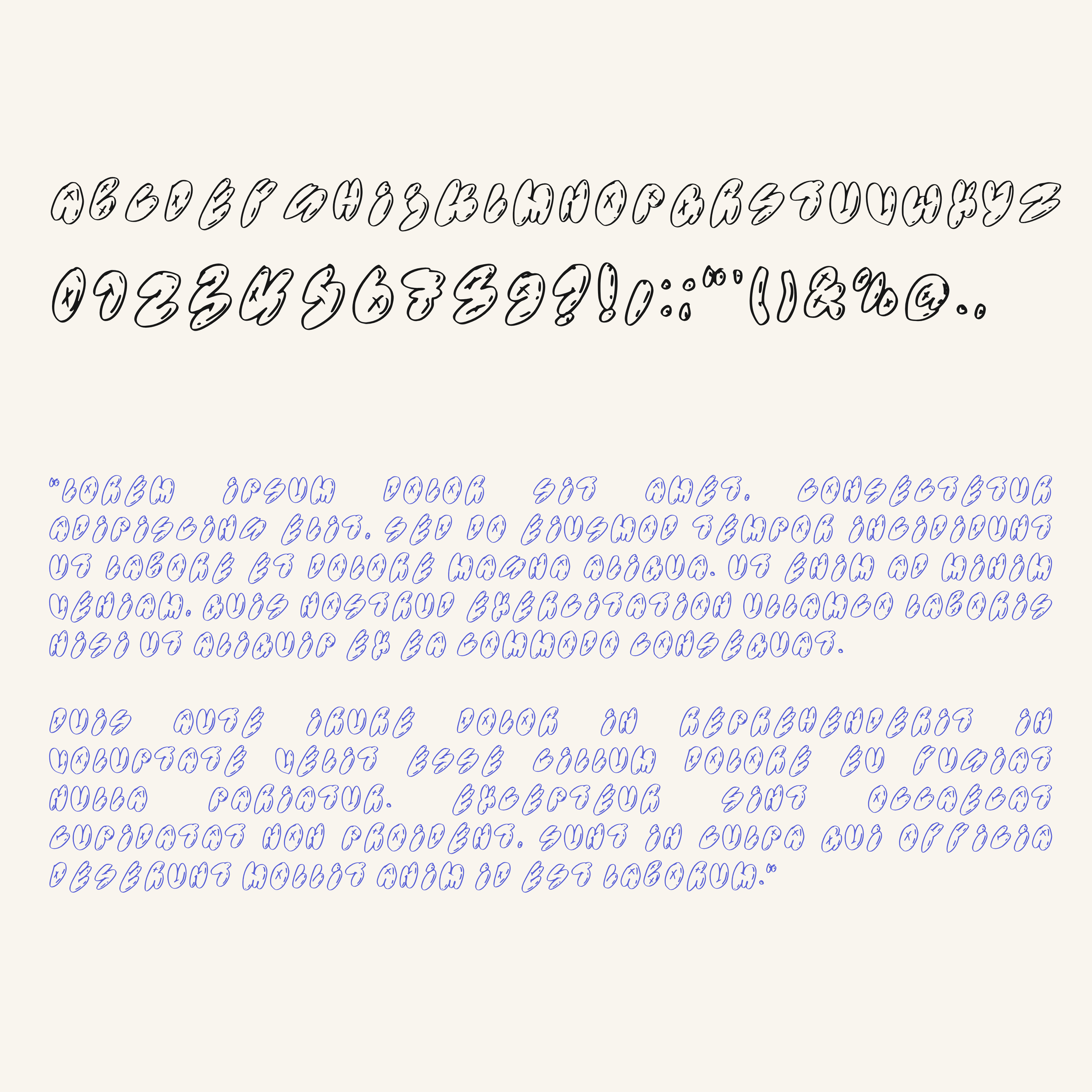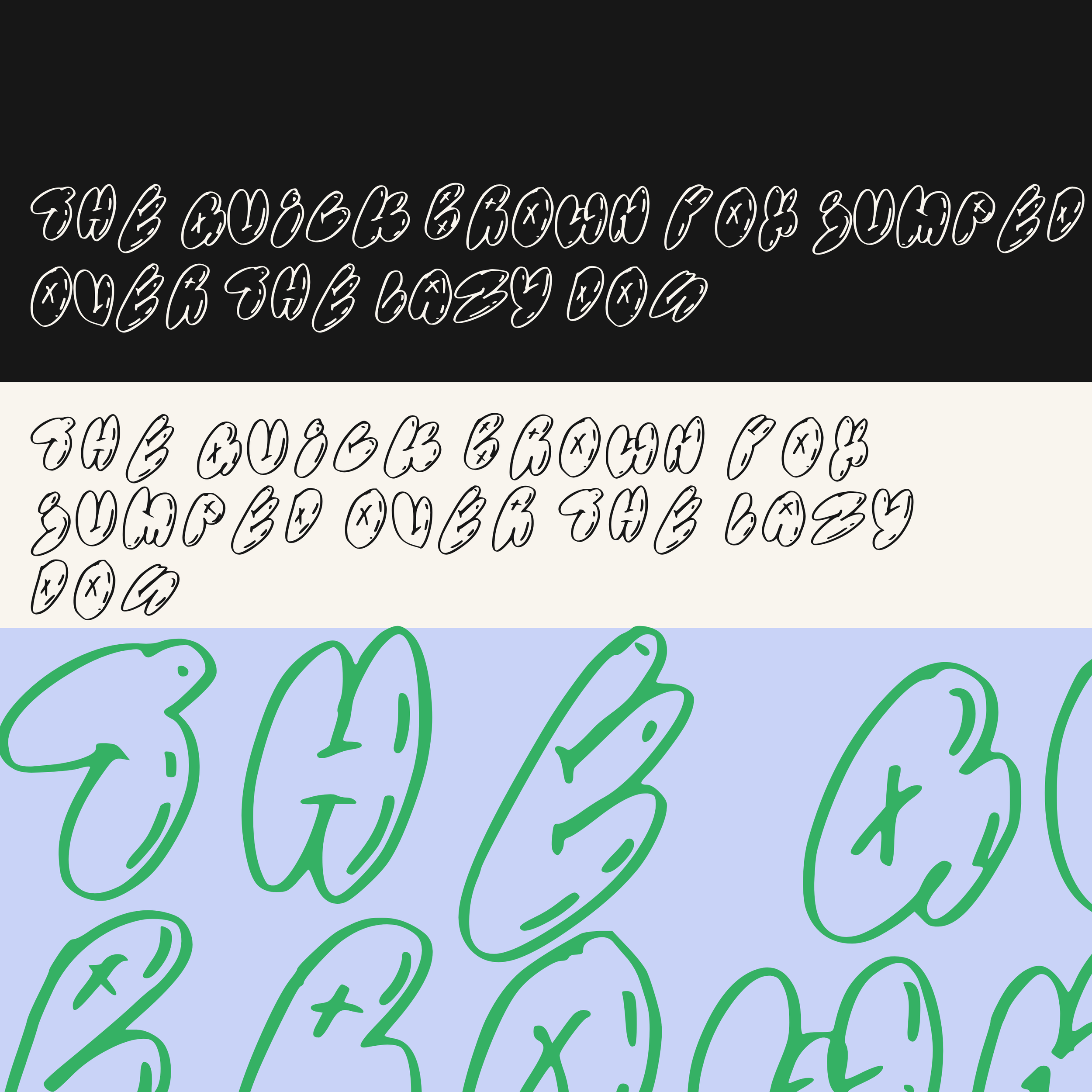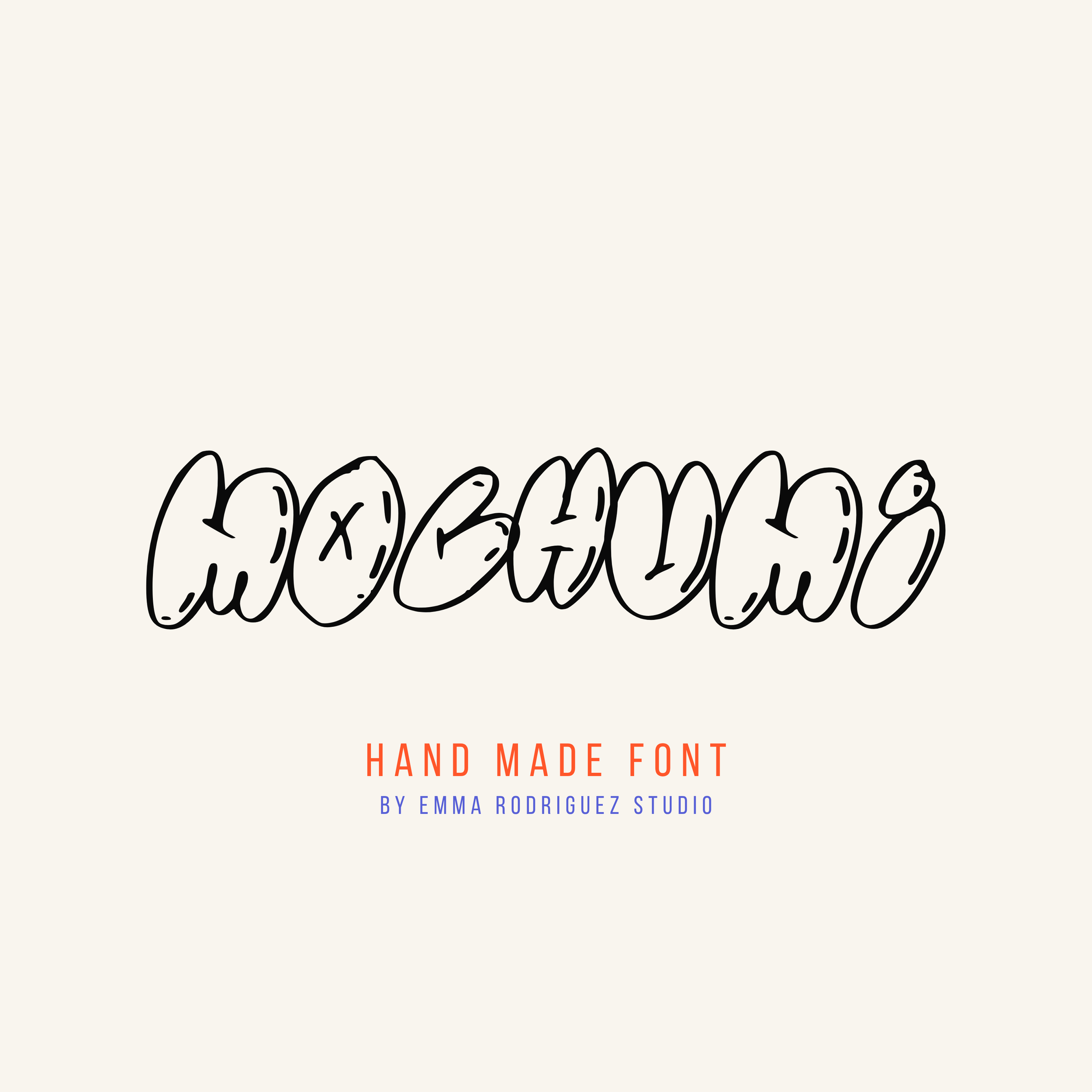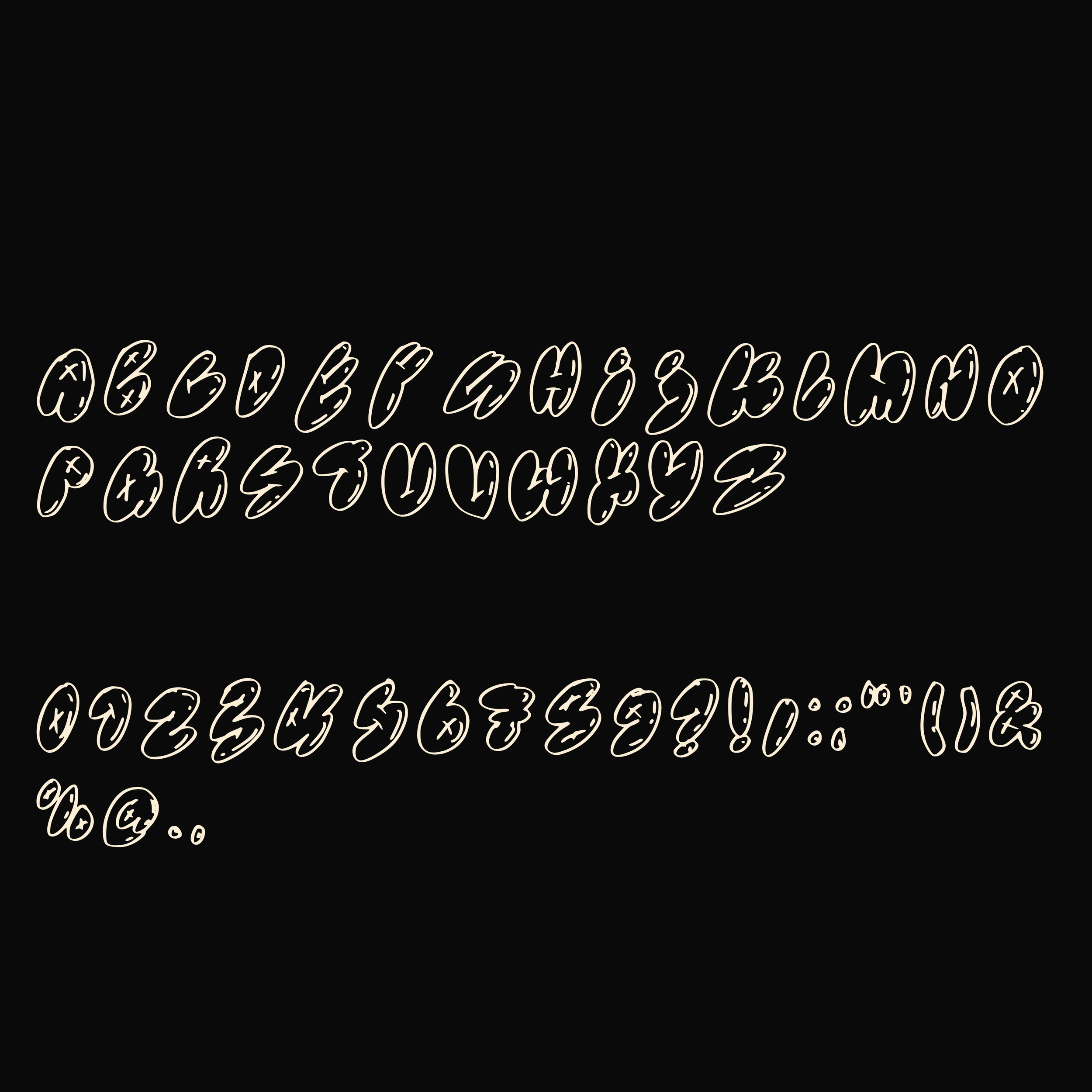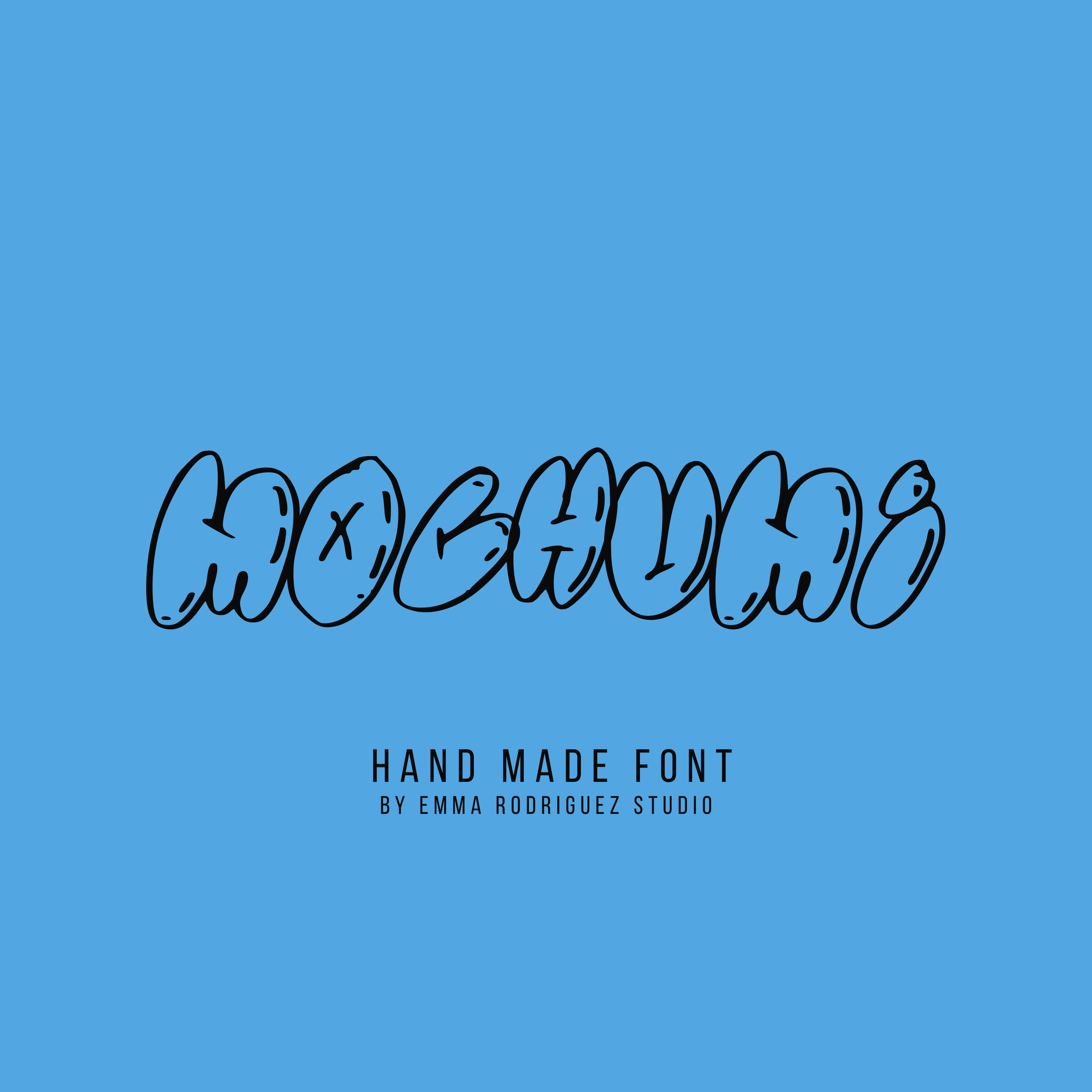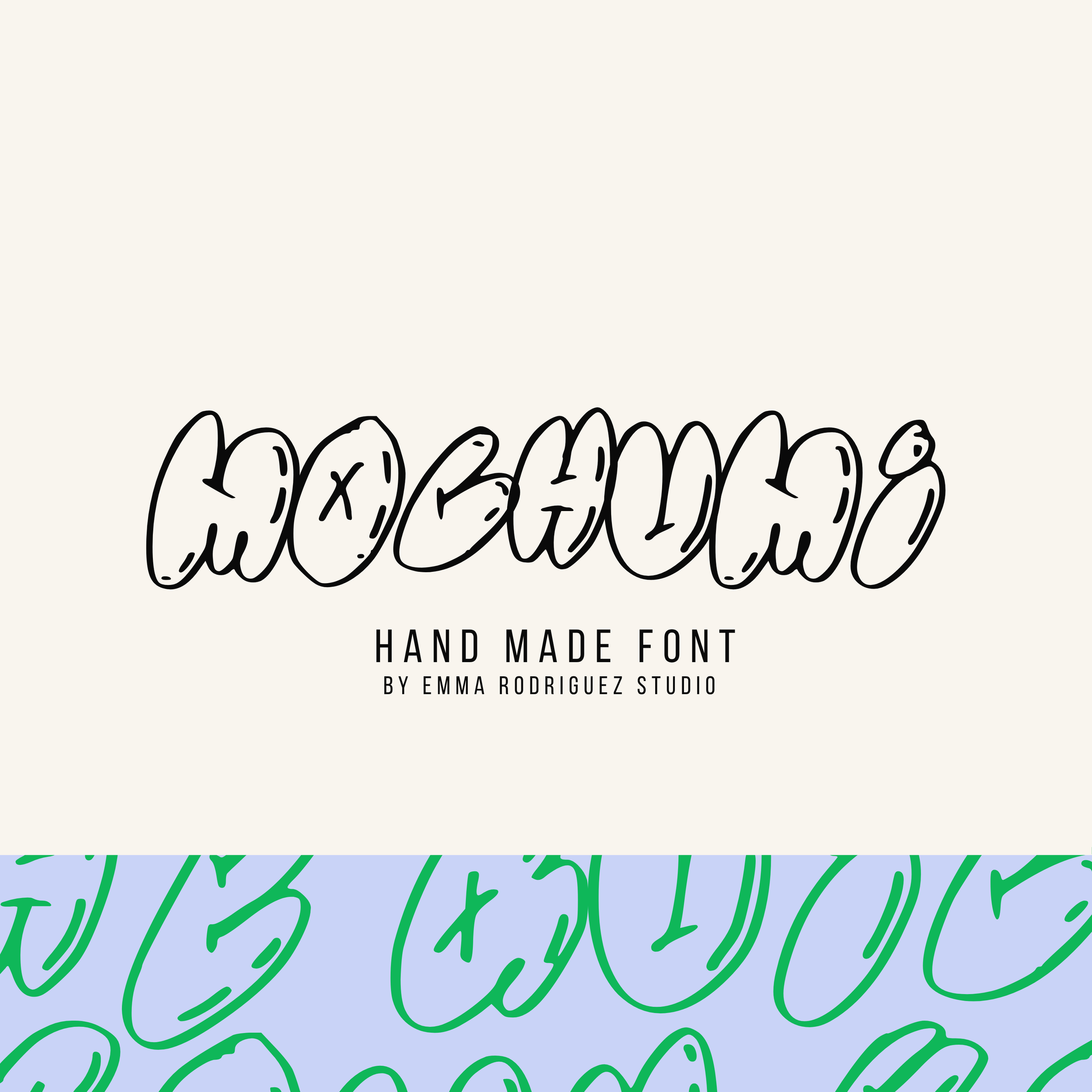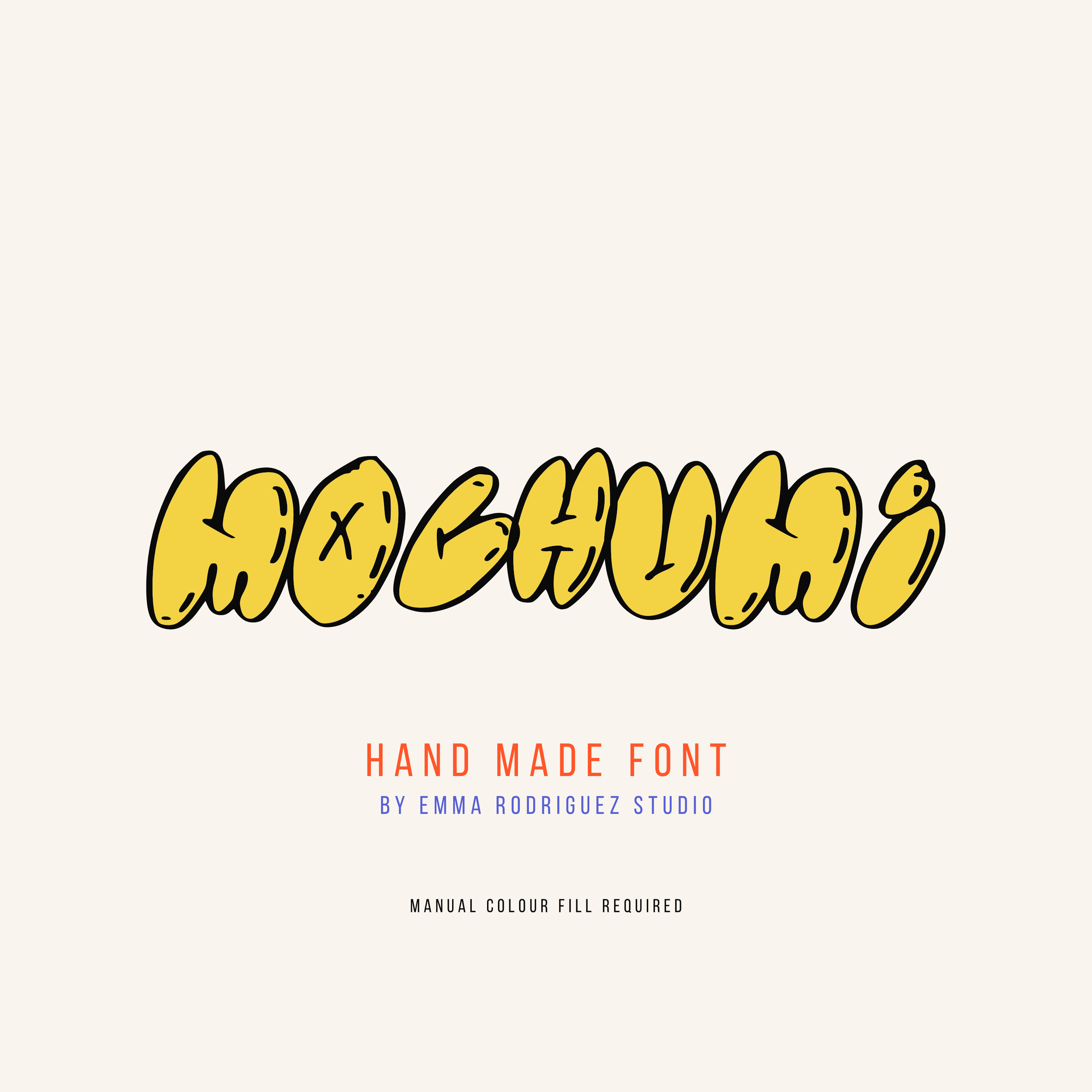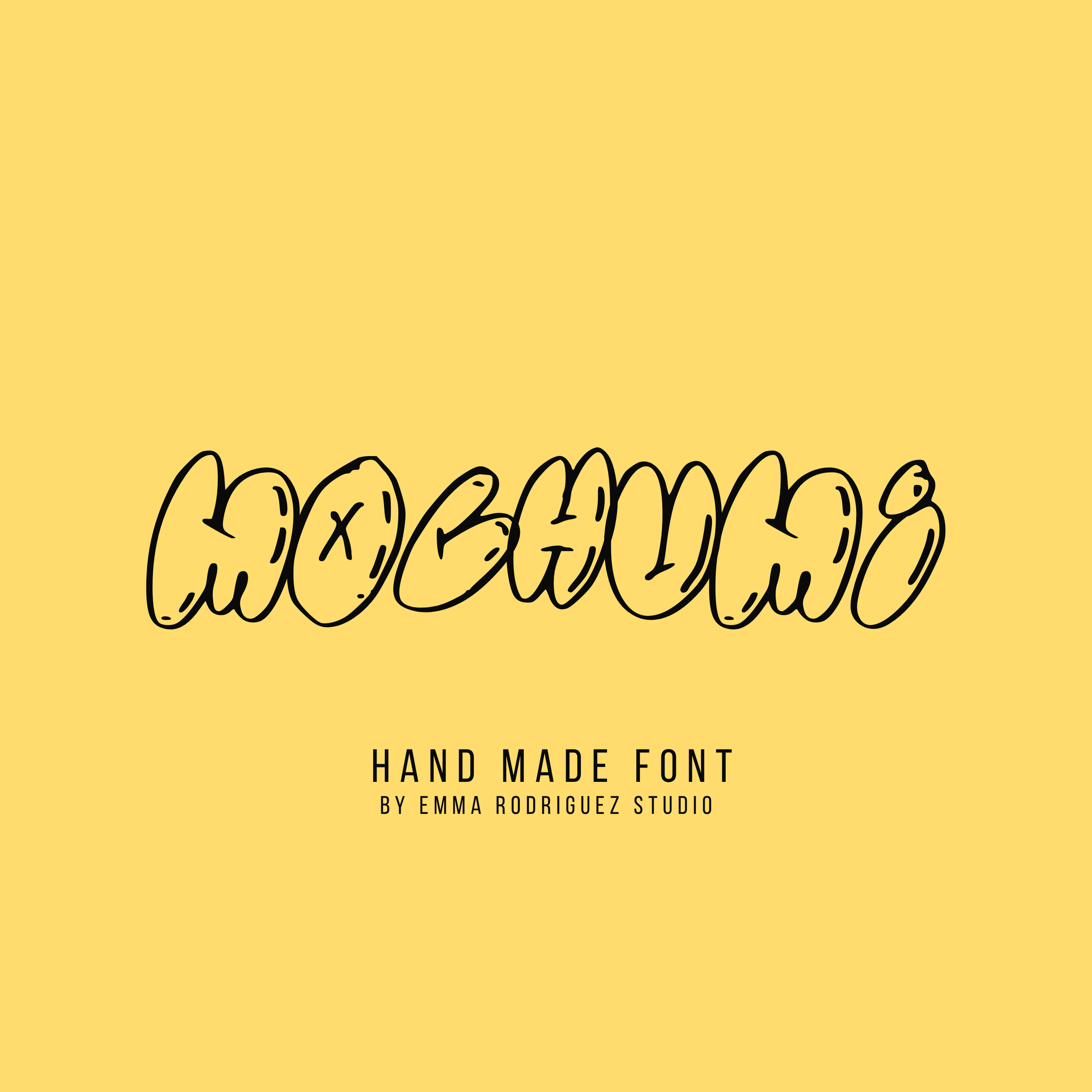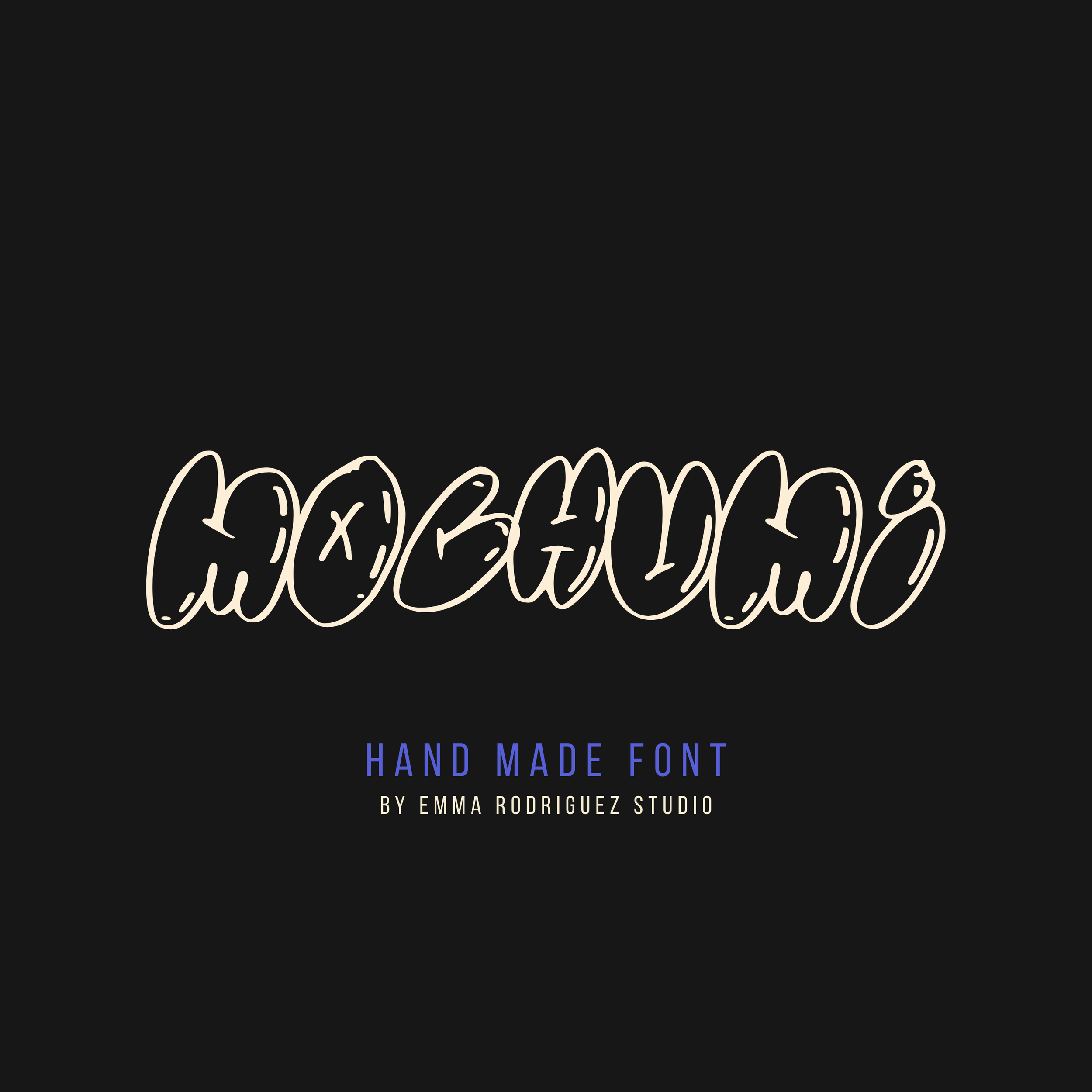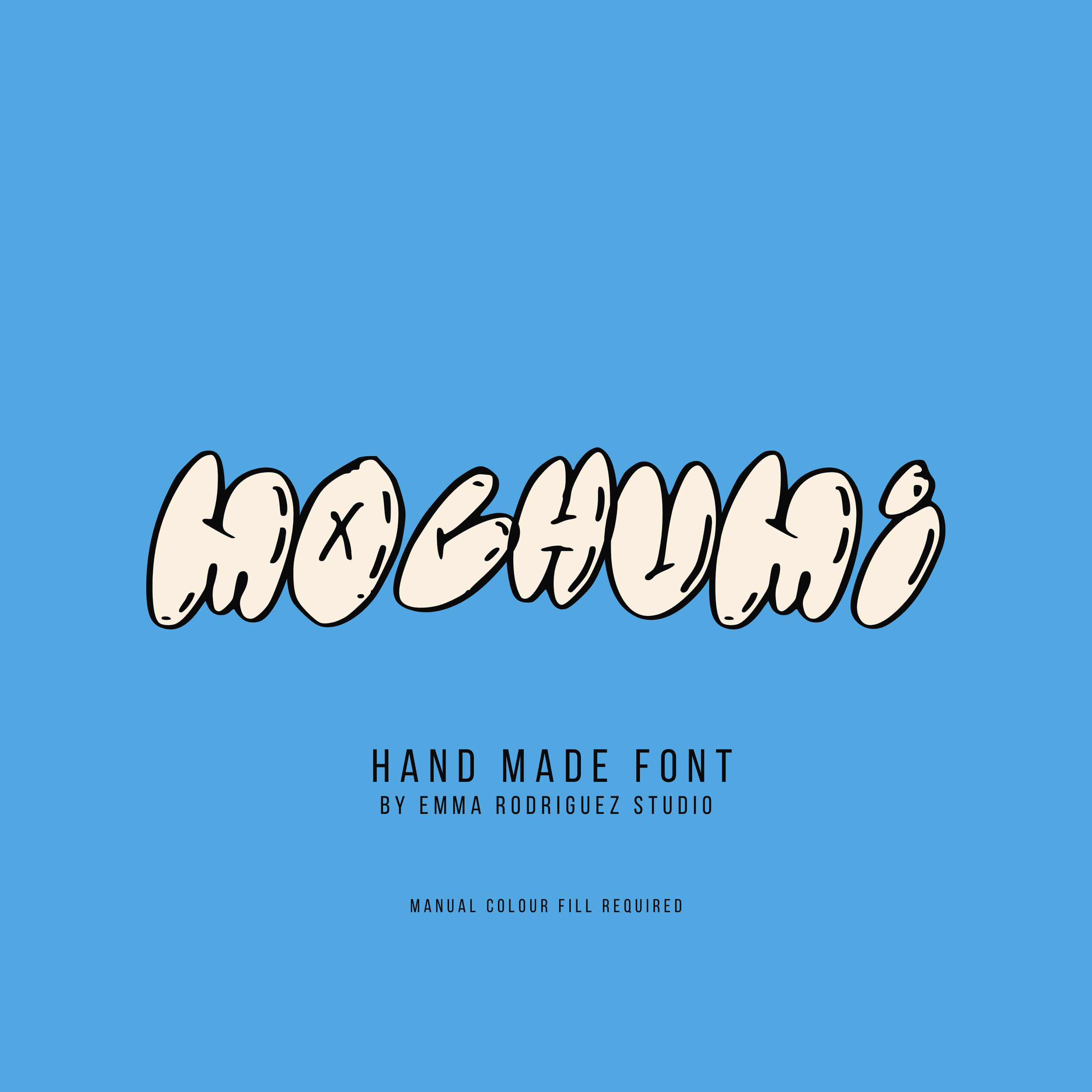
Mochumi Font - Graffiti Bubble Type
Mochumi is a playful handmade graffiti bubble font designed for creatives who want typography with bold personality and a more expressive hand drawn feel. Inspired by retro graffiti lettering, streetwear graphics, cartoon typography, and playful urban design styles, this font combines chunky rounded forms, imperfect outlines, and exaggerated handmade shapes to create something loud, fun, and full of character.
The outlined lettering style gives the font a quirky illustrated appearance that works perfectly across posters, branding, packaging, stickers, apparel graphics, editorial layouts, album artwork, and social media content. Its inflated bubble forms and uneven structure help give designs a more artistic and energetic feel that stands out from cleaner digital typography.
• Uppercase letters
• Numbers 0–9
• Basic punctuation
With intentional differences in baselines and kerning, this font is by no means designed to be perfect, but instead created to bring fun character and a genuine handmade feel throughout. If you are looking for perfectly aligned digital typography, this may not be the font for you. The handmade imperfections and uneven structure are intentional parts of the font design and help give the typeface its bold playful character.
This font uses open outline style lettering and manual colour filling is required when changing colours or applying fills. Due to the intentionally imperfect disconnected outline structure, automatic fills may not always work correctly depending on the software being used.